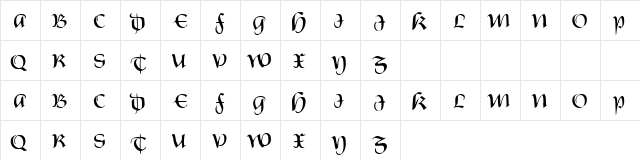
Plantum Regular
Design Context for Plantum Typeface
Plantum is a composed and adaptable typeface that performs quietly and consistently across a wide range of design contexts.